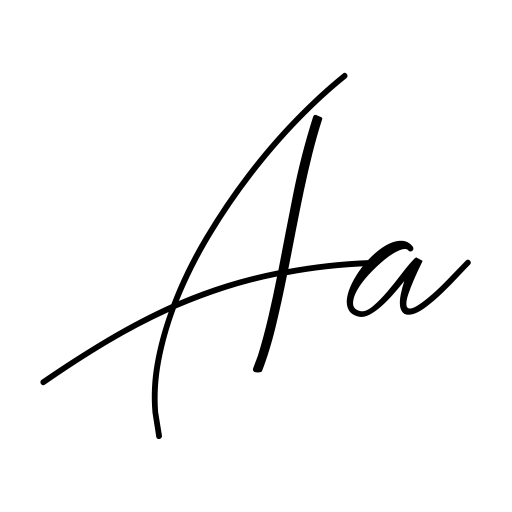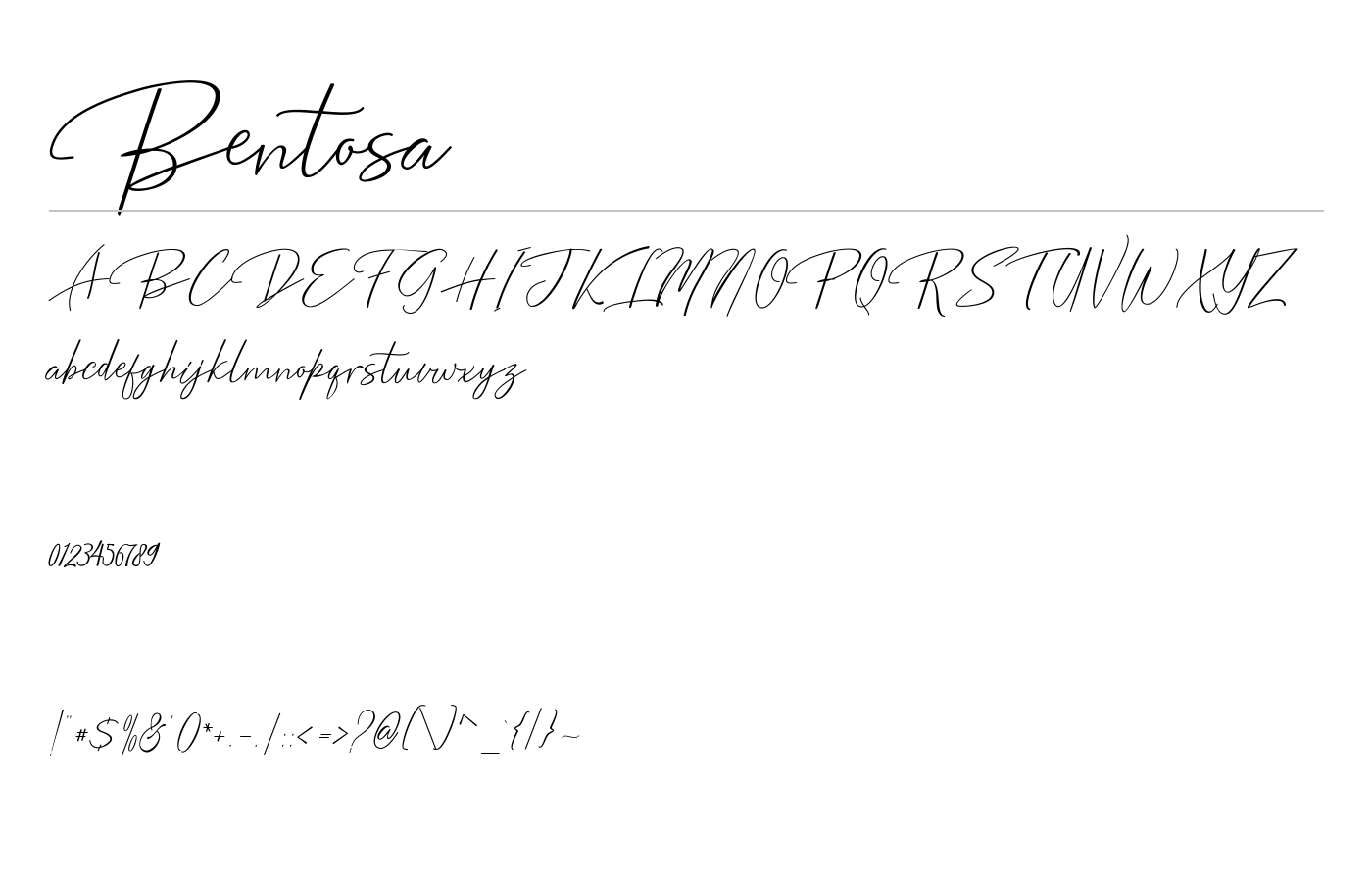
Bentosa is a delicate and elegant script font featuring slender, flowing letterforms with a refined, handwritten style. Its light weight and graceful curves make it perfect for adding a sophisticated and personal touch to branding, invitations, and stylish editorial designs. This font excels in projects that seek a modern yet intimate feel, highlighting elegance and creativity.
Bentosa Font
About Bentosa Font
| Font family | Bentosa Font |